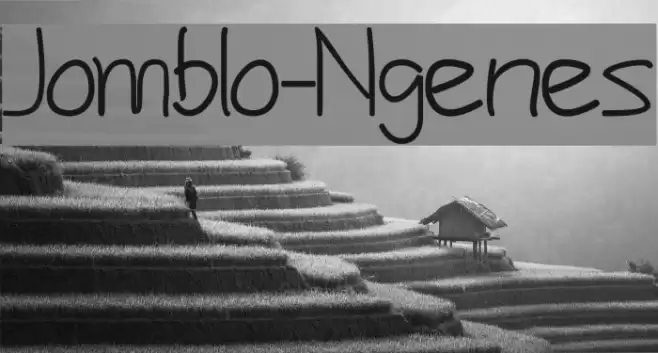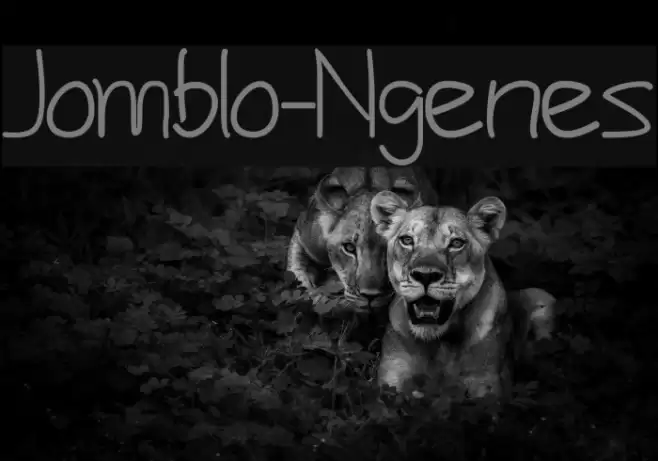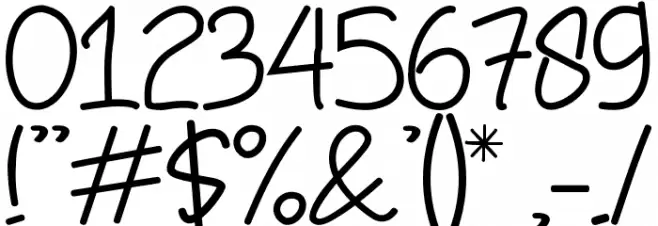
Jomblo-Ngenes Font
Jomblo-Ngenes Description
This playful and informal font features a handwritten style with smooth, flowing lines and rounded edges. The characters are slightly irregular, giving it a casual and friendly appearance. The uppercase letters are tall and narrow, while the lowercase letters maintain a consistent height, creating a harmonious balance. The numerals are clear and easy to read, matching the overall whimsical aesthetic. Special characters are creatively designed, adding to the font's charm. This font is perfect for projects that require a personal touch or a fun, approachable vibe.
A playful, handwritten font with smooth, flowing lines and rounded edges from Handwritten fonts.
- Proposed Projects: Ideal for greeting cards, children's books, playful branding, and social media graphics.
- Overall Style: Casual
- Use Case: Logos, Headlines, Informal Text